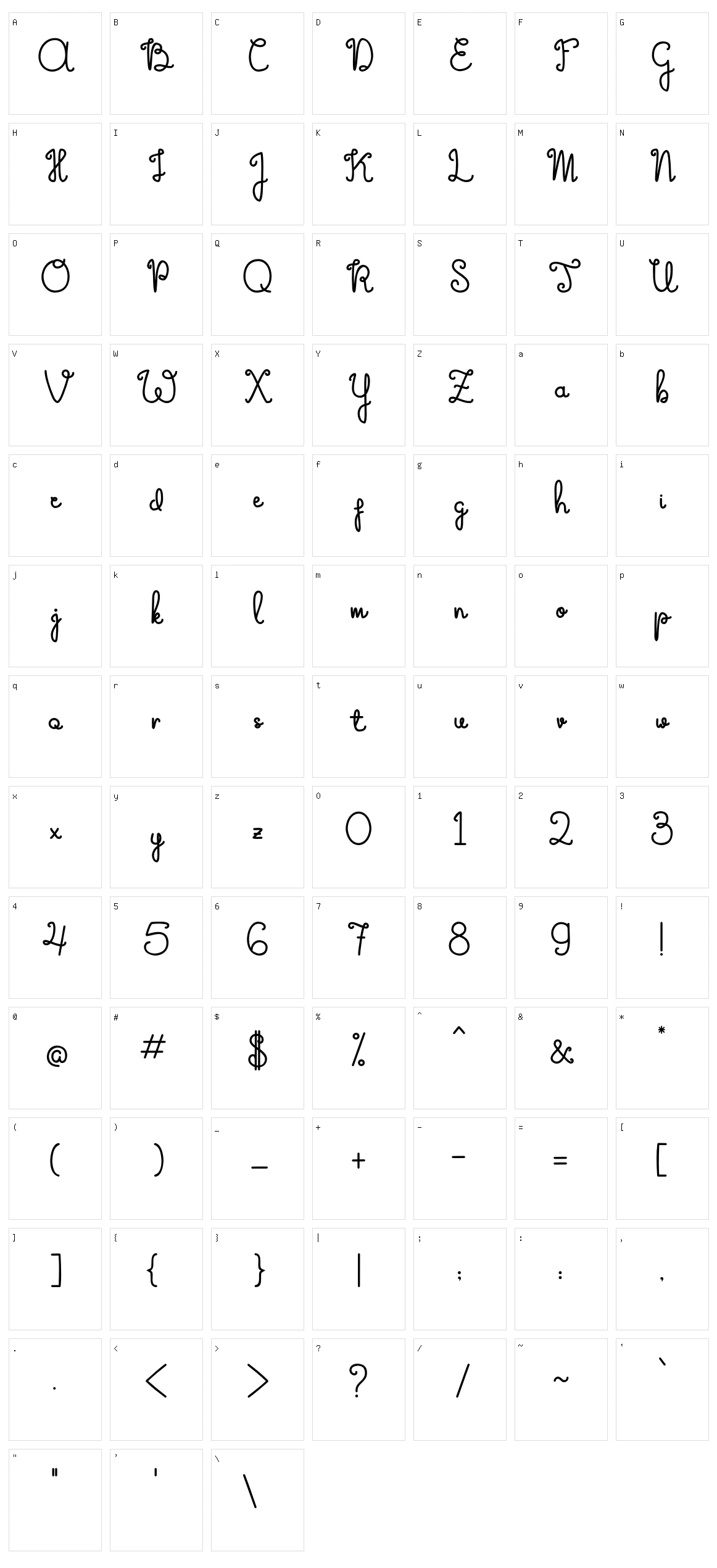
Thank you so much for downloading our font.The Flowery spring is handwritten script style font, which suitable for girly, kids, or feminine type project.